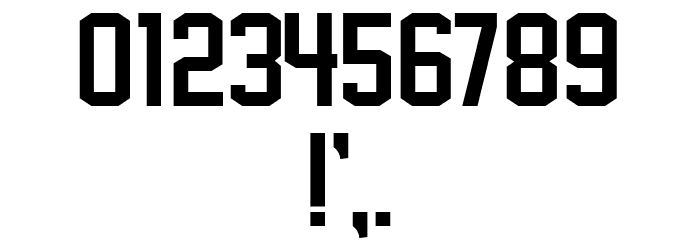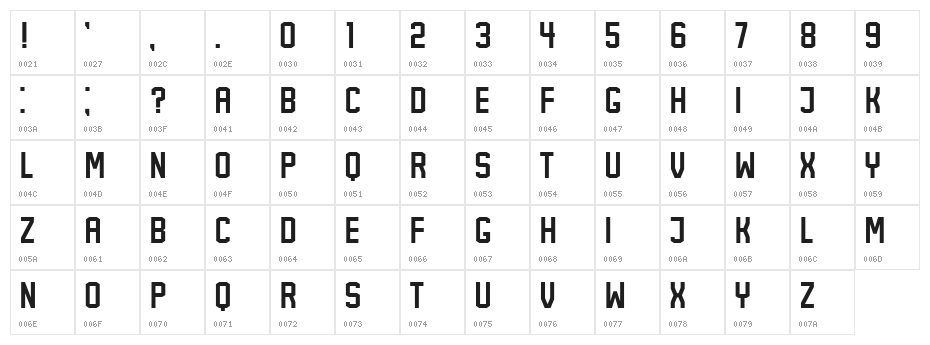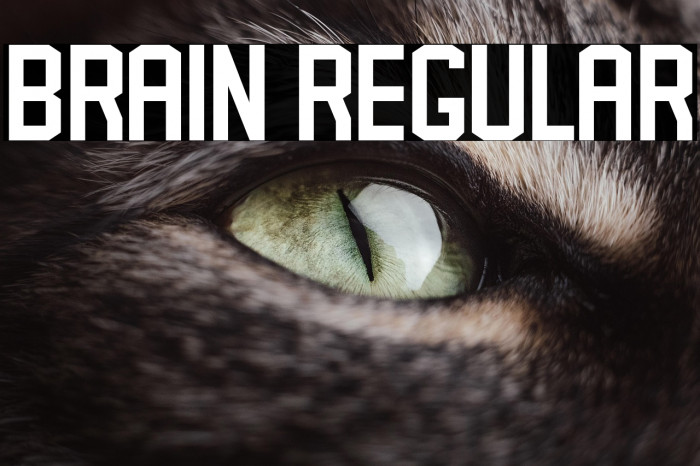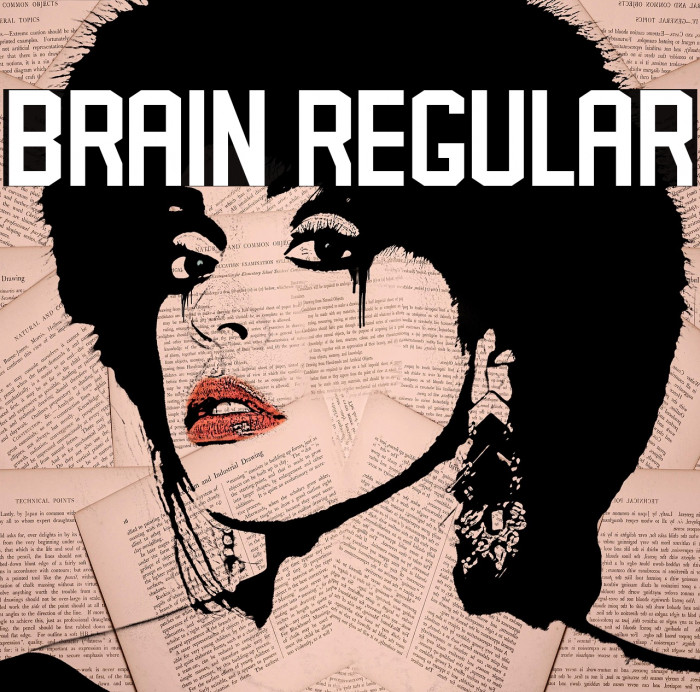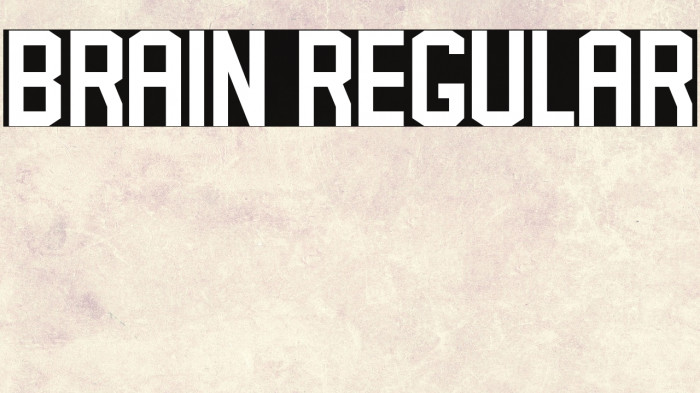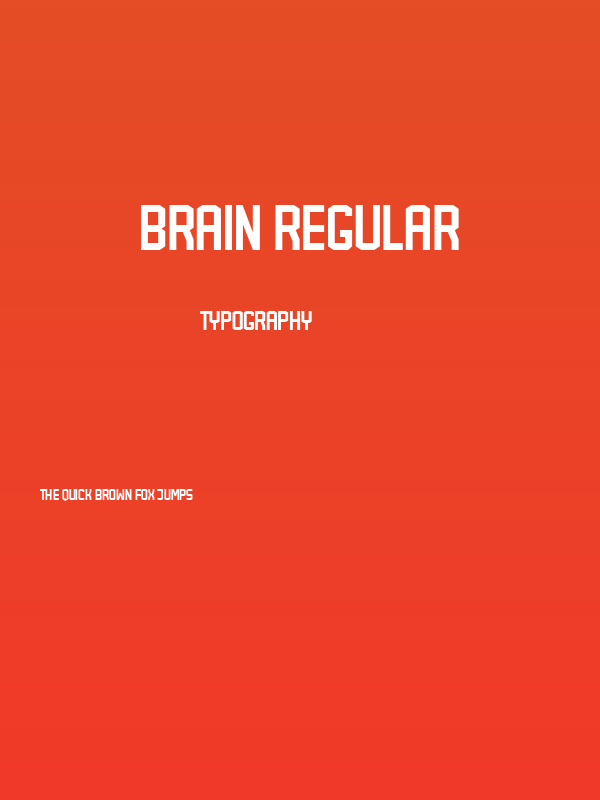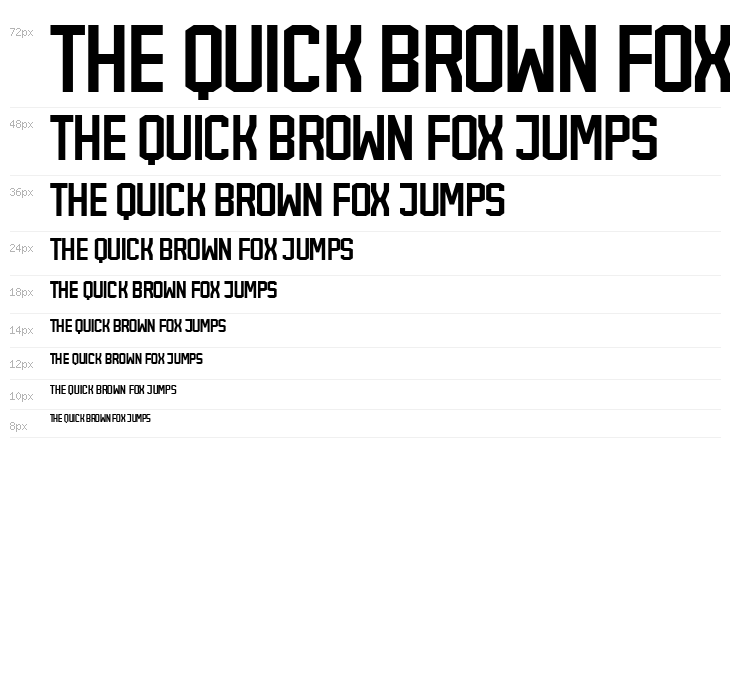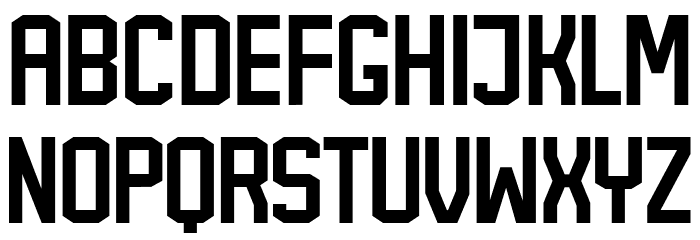
Brain Regular Font
Brain Regular Description
This font features a bold, geometric design with a modern and industrial feel. The characters are constructed with straight lines and sharp angles, giving it a strong and assertive appearance. The uppercase and lowercase letters maintain a consistent height, contributing to a uniform look. The numerals and special characters follow the same geometric style, ensuring cohesion across all elements. The font's boldness and distinct shape make it highly legible and suitable for impactful designs.
| Proposed Projects | Ideal for branding, headlines, posters, and signage where a strong, modern impression is desired. |